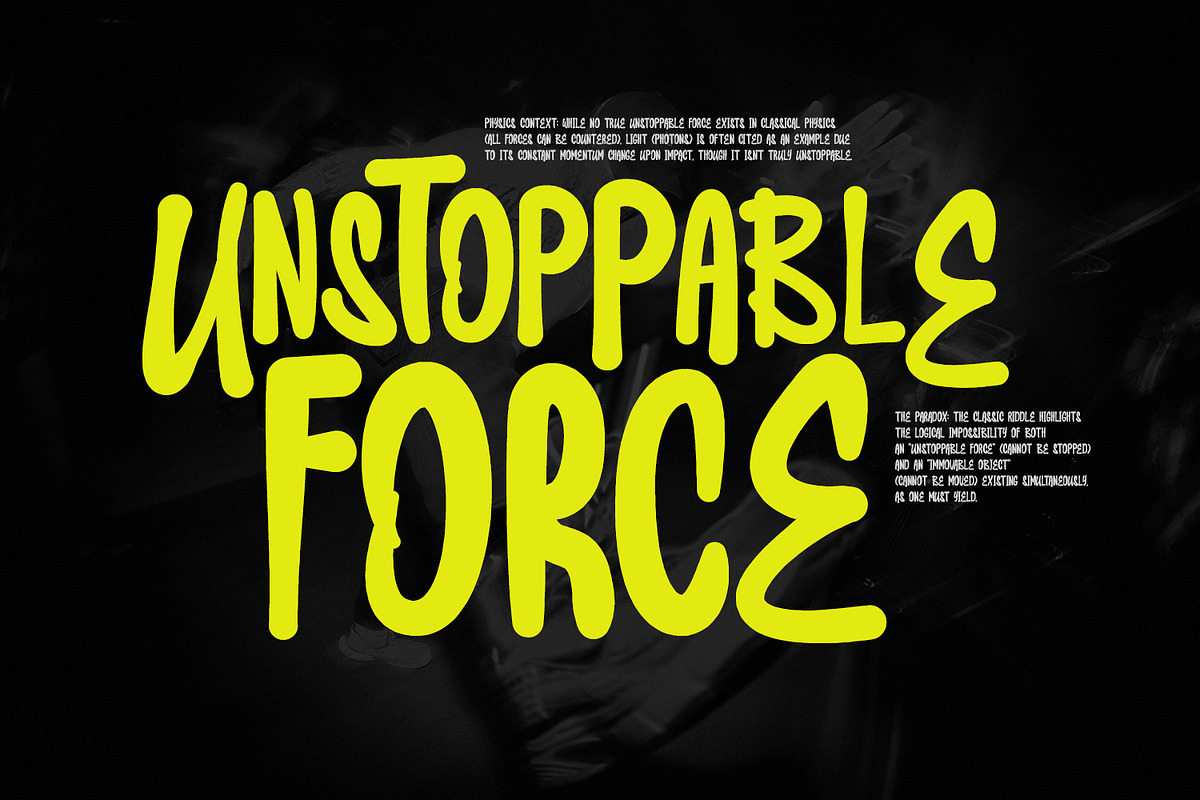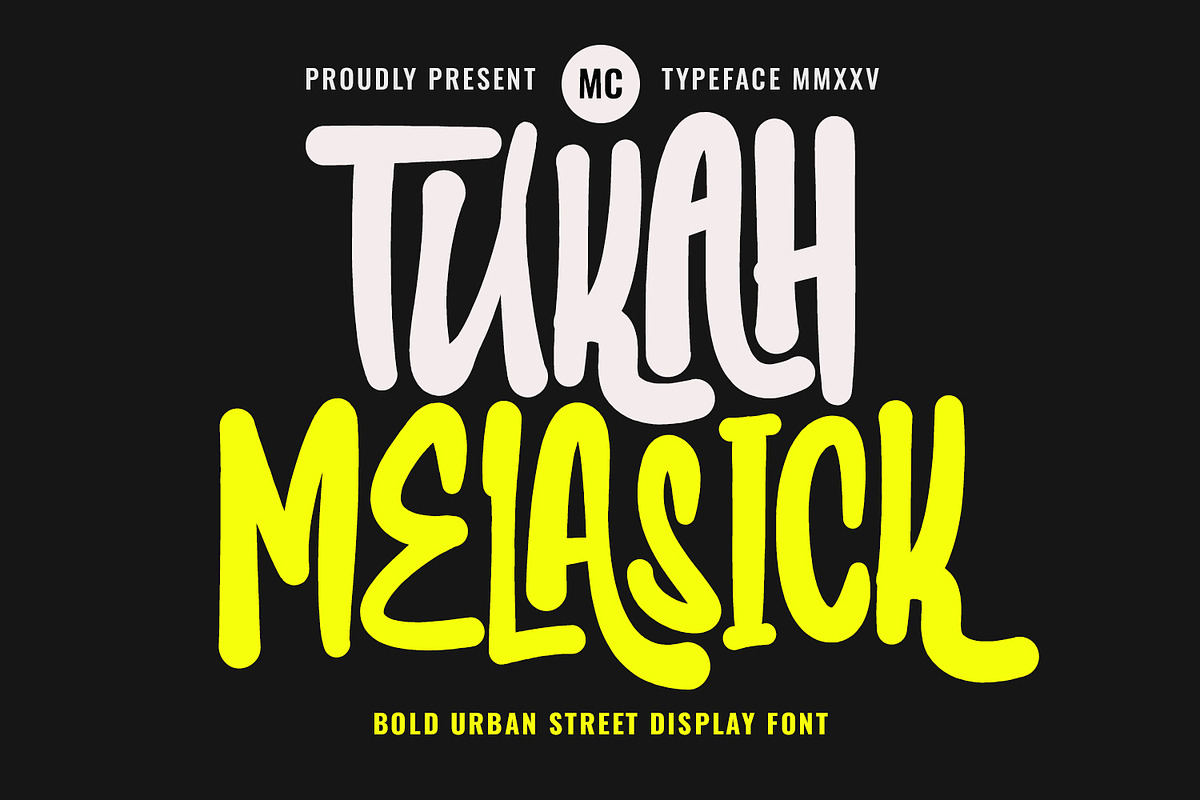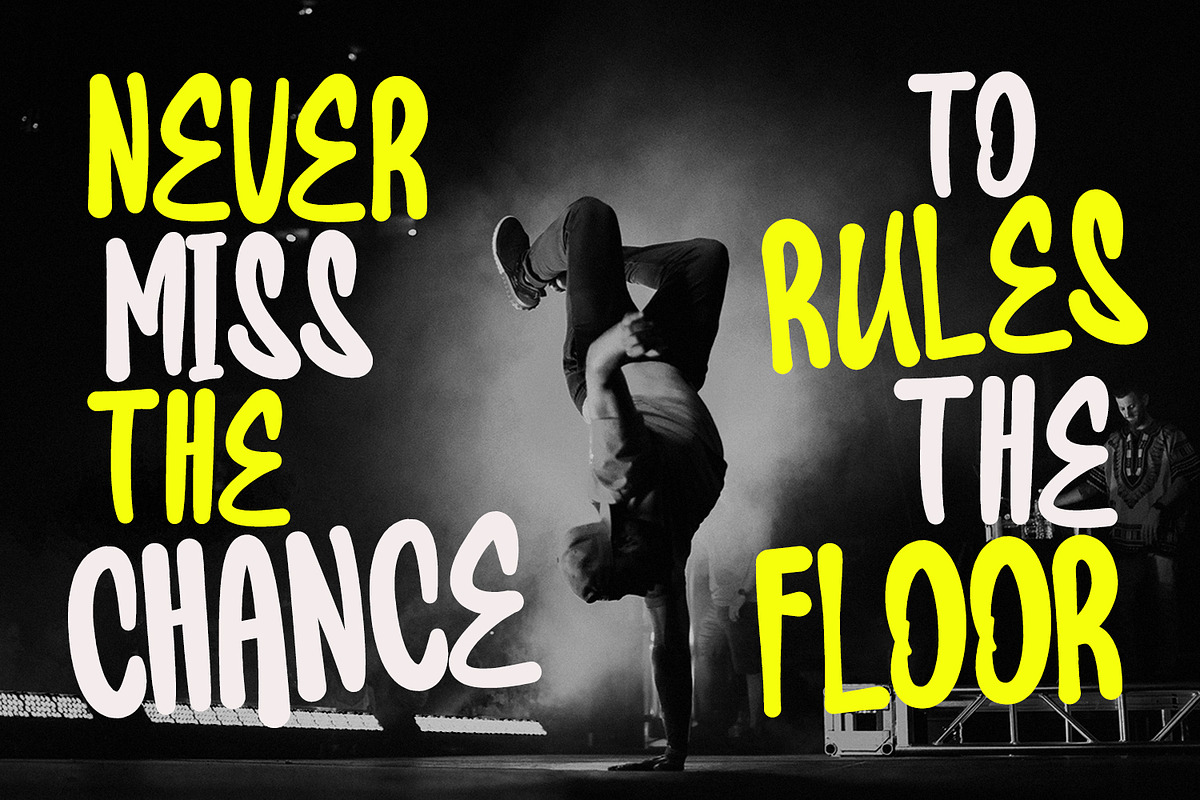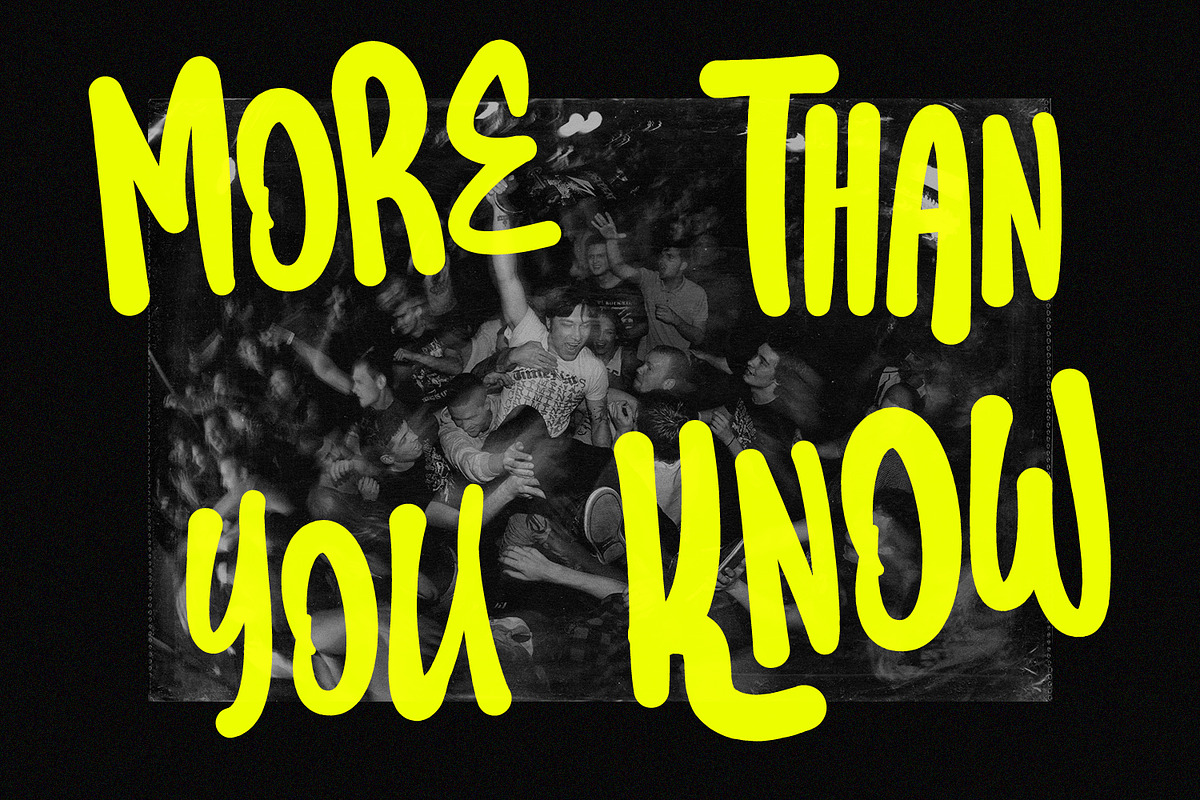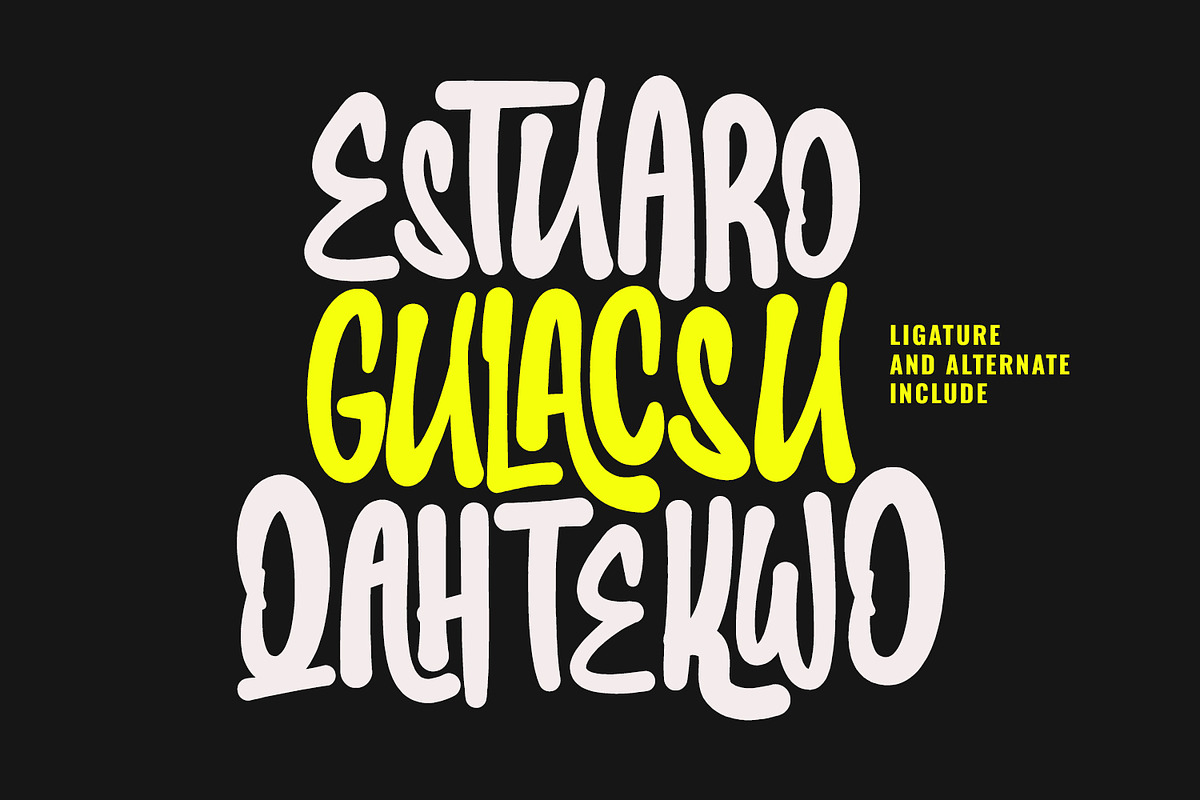
Tukah Melasick Bold Urban Street
Ignite your designs with the raw energy of the streets! Tukah Melasick is a bold, high-impact display font inspired by urban graffiti culture and modern streetwear aesthetics. Featuring thick, hand-drawn strokes and a rebellious spirit, this typeface is designed to grab attention instantly.
Whether you're working on a gritty underground poster, a sleek streetwear brand, edgy social media graphics, or a dynamic sports logo, Tukah Melasick provides the perfect balance of "cool" and "readable." It comes packed with unique ligatures and alternates to give your typography a custom, hand-lettered feel.
- Bold & Expressive: Perfect for headlines and hero banners.
- Ligatures & Alternates: Create a natural, non-repetitive hand-drawn look.
- Multilingual Support: Ready for global projects.
- Versatile: Ideal for hoodies, posters, album covers, and gaming content.